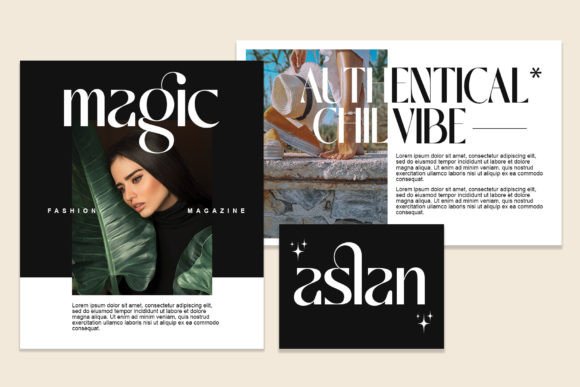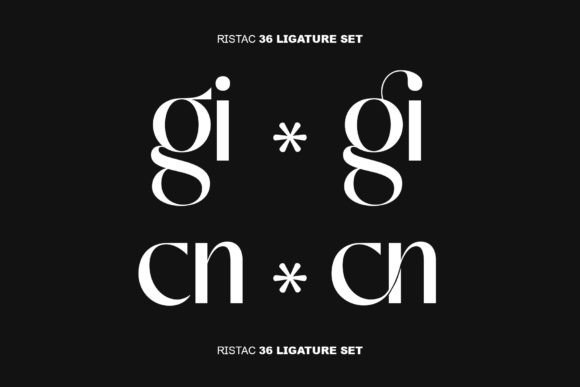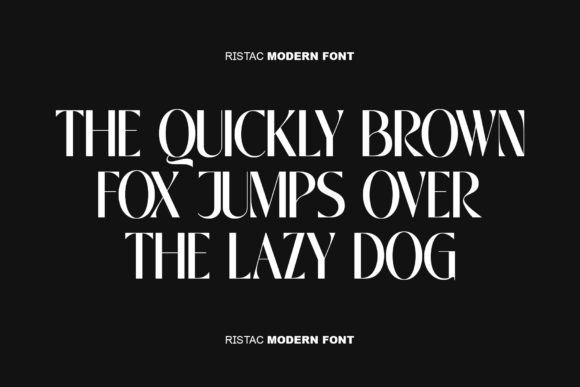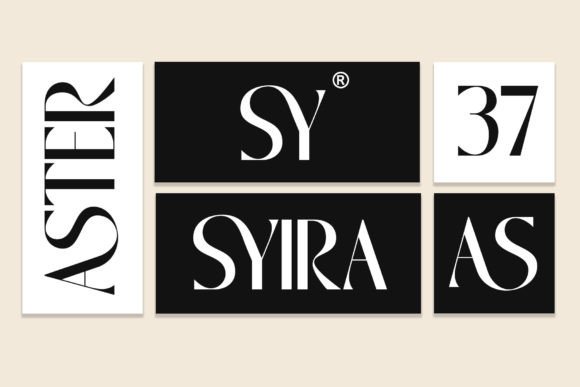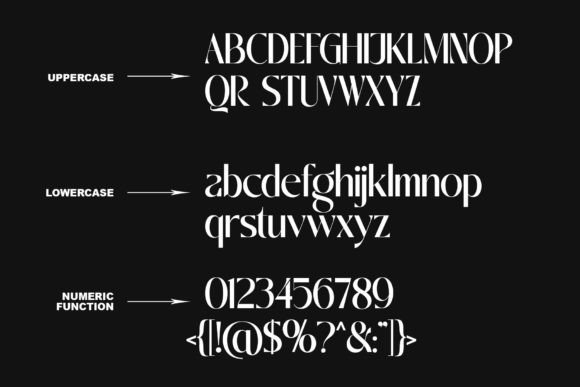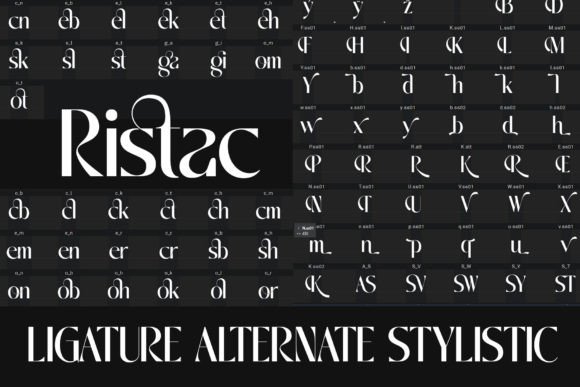
Introduction to Ristac Font Font
Fonts play a crucial role in design, and the Ristac Font font is a typeface that brings both character and versatility to any project. Whether you’re working on a branding project, a website, or a print design, the Ristac Font font offers a unique style that can elevate your work.
Ristac is a special modern sans-serif style font made with accurate accuracy.
With special characters and ligatures that make your work very special It is perfect for branding design, logos, greeting cards, and headline packaging.
Key Features of Ristac Font Font
Why Choose Ristac Font Font?
The Ristac Font font is more than just a typeface β it’s a design tool that helps you communicate your message with style and clarity. Its unique character set and versatile design make it suitable for a wide range of applications, from elegant invitations to bold headlines.
With its carefully crafted letterforms and balanced proportions, the Ristac Font font ensures readability and visual appeal across all mediums.
What makes Ristac Font font special?
The Ristac Font font stands out with its unique design, exceptional readability, and versatility across various design applications.